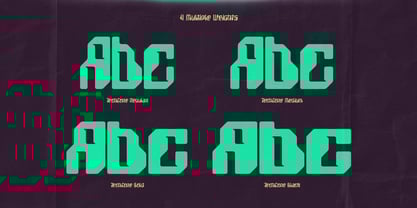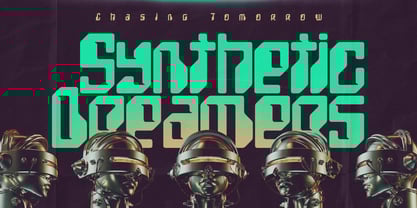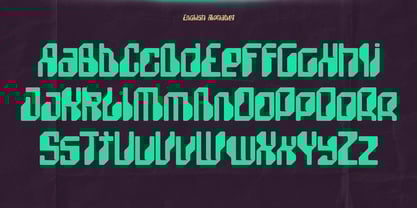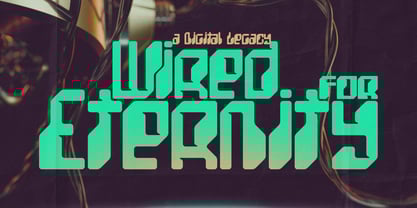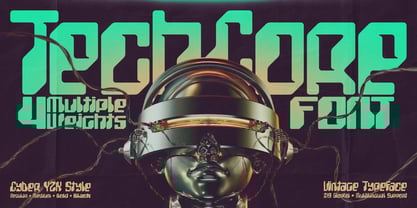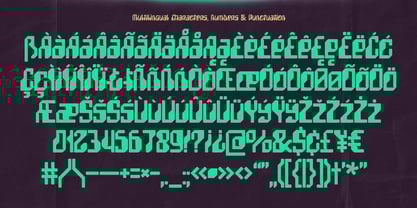
TechCore
The TechCore Font Family was designed by Gleb Guralnyk and published by Gleb Guralnyk. TechCore contains 4 styles and family package options. More about this family
Hi! Introducing a old-school font set named TechCore. This cyber-vintage typeface fuses retro computer aesthetics with futuristic robotic flair, making it perfect for bold graphic designs. Inspired by early ages circuits, and classic arcade vibes, it brings a unique balance of nostalgia and digital edge to your projects.
The TechCore family includes four weights: Regular, Medium, Bold, Black. Each font contains 219 glyphs and supports multiple languages — check the screenshot to view the full character set!
A lot of my fonts inherits vintage graphic styles but nevertheless I don't like to stick to one theme for a long time. That's why I'm trying to create fonts in different styles and from different eras, from old gothic calligraphic to modern handwritten scripts, from medieval antique to minimalist sans-serif typefaces. It's always interesting to design something new, and expand my skills in novel font design directions.